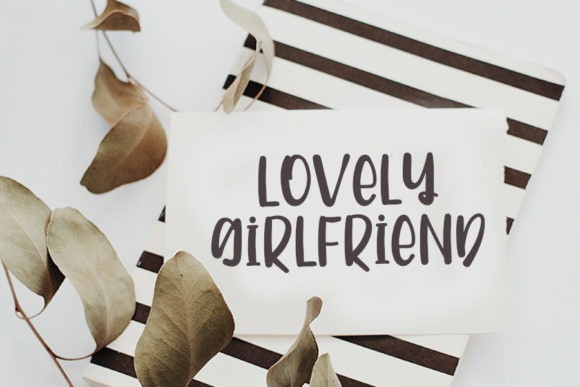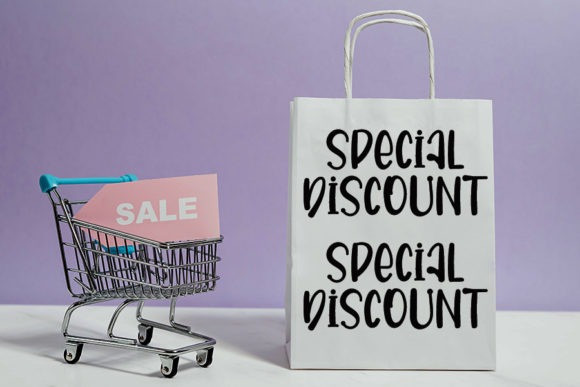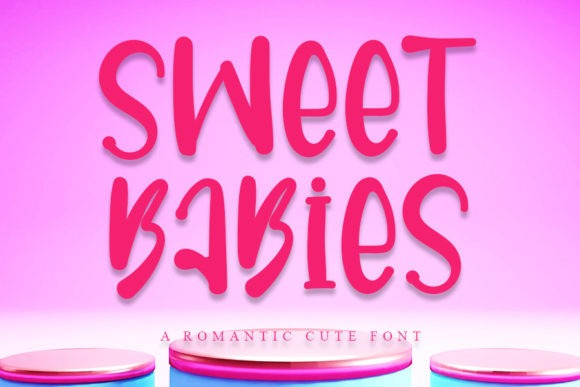
Sweet Babies Font
Sweet Babies Display Font is a lovely and timeless display font. It is the best choice for creating eye-catching logos, branding, and quotes. Every letter has a unique and beautiful touch, which will make your designs come alive!